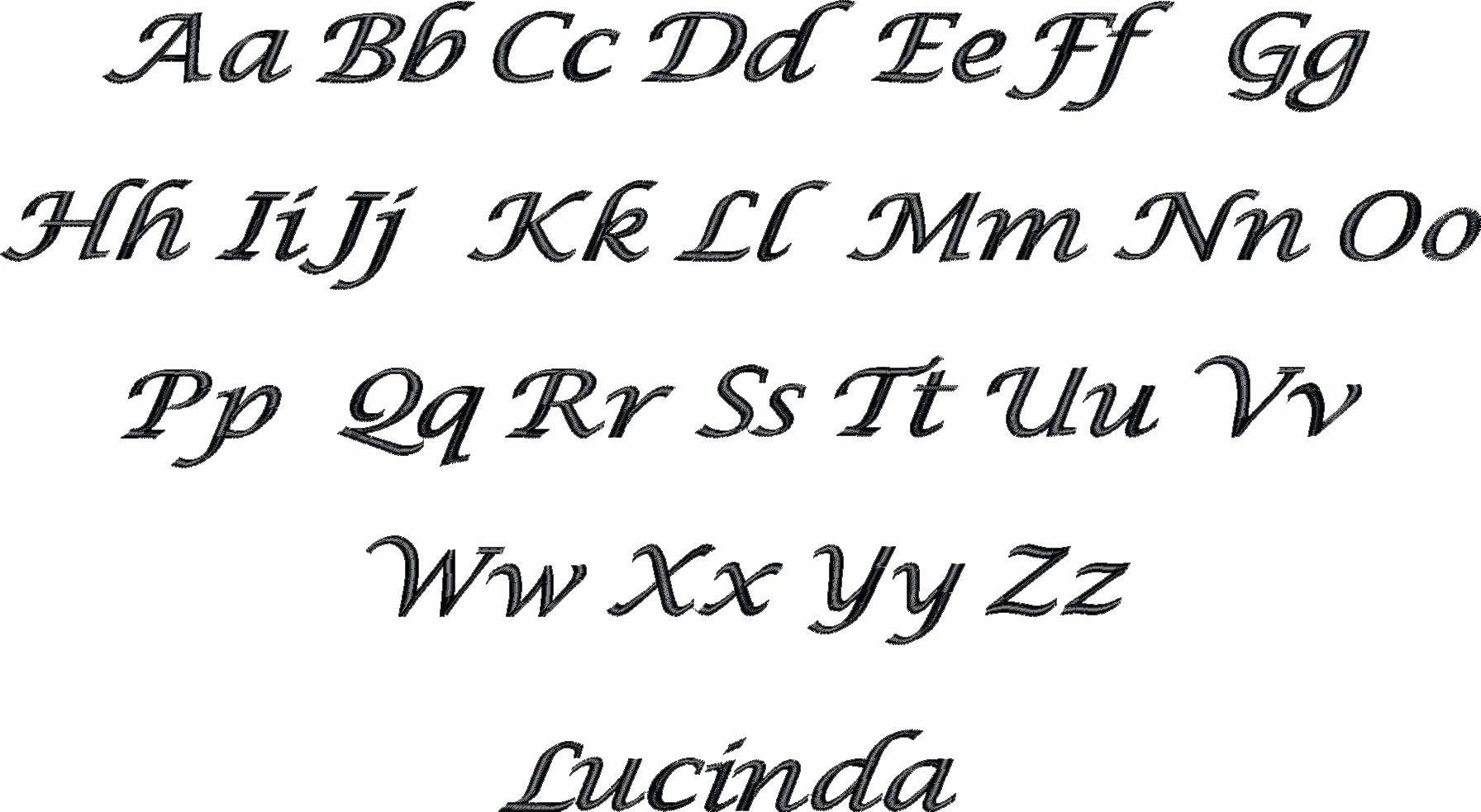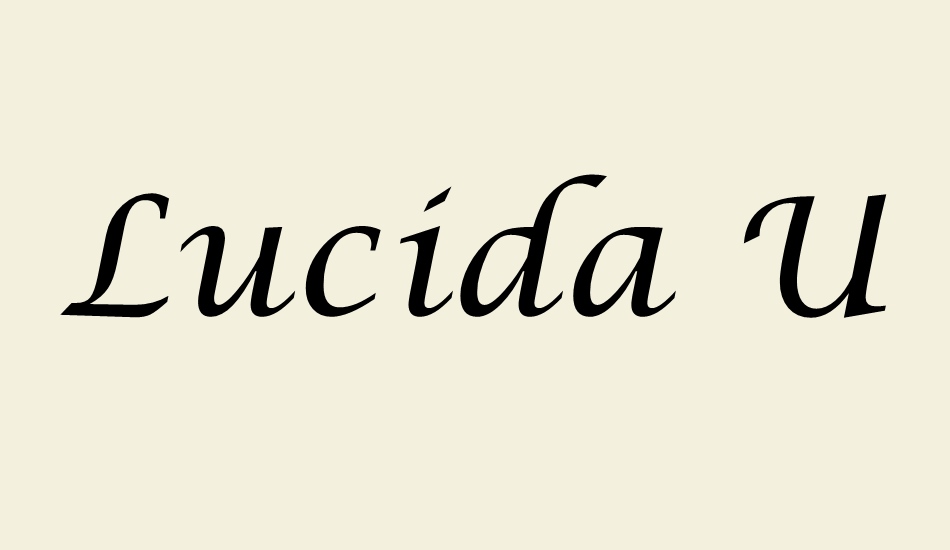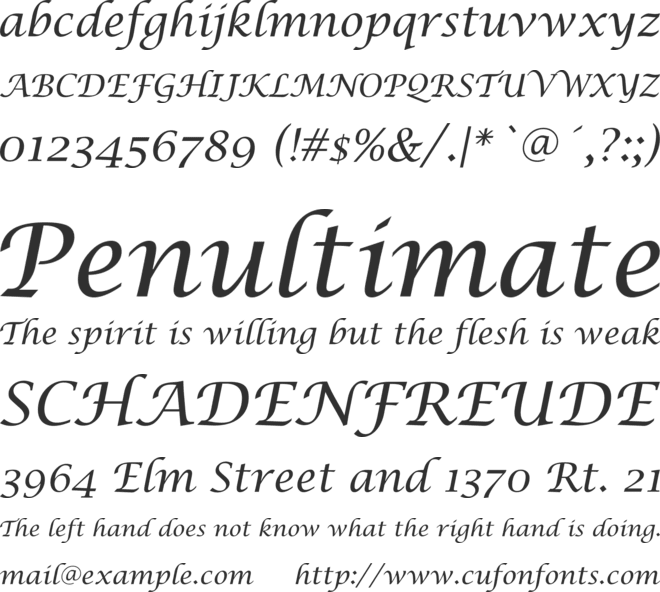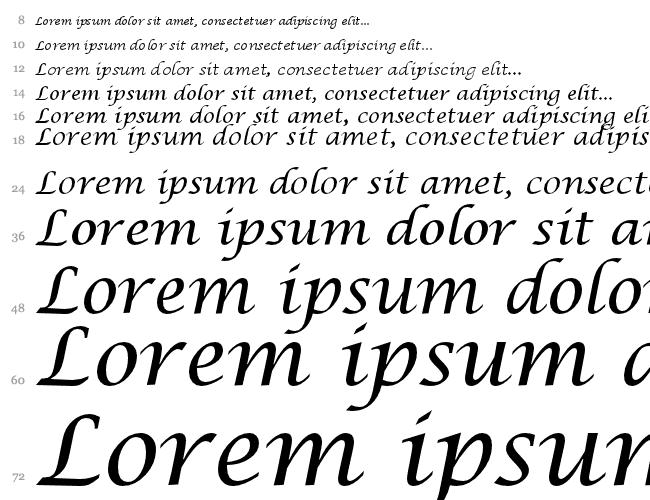
Fonts Lucida Calligraphy
Fonts Lucida Calligraphy - Web lucida calligraphy is a chancery cursive script typeface family designed by kris holmes and charles bigelow. Web it is a very legible and readable typeface, designed for use on screen and in print environments. Lucida calligraphy is a chancery cursive script typeface family designed by kris holmes and charles.
Web it is a very legible and readable typeface, designed for use on screen and in print environments. Lucida calligraphy is a chancery cursive script typeface family designed by kris holmes and charles. Web lucida calligraphy is a chancery cursive script typeface family designed by kris holmes and charles bigelow.
Web lucida calligraphy is a chancery cursive script typeface family designed by kris holmes and charles bigelow. Lucida calligraphy is a chancery cursive script typeface family designed by kris holmes and charles. Web it is a very legible and readable typeface, designed for use on screen and in print environments.
Web it is a very legible and readable typeface, designed for use on screen and in print environments. Web lucida calligraphy is a chancery cursive script typeface family designed by kris holmes and charles bigelow. Lucida calligraphy is a chancery cursive script typeface family designed by kris holmes and charles.
Web lucida calligraphy is a chancery cursive script typeface family designed by kris holmes and charles bigelow. Lucida calligraphy is a chancery cursive script typeface family designed by kris holmes and charles. Web it is a very legible and readable typeface, designed for use on screen and in print environments.
Lucida calligraphy is a chancery cursive script typeface family designed by kris holmes and charles. Web it is a very legible and readable typeface, designed for use on screen and in print environments. Web lucida calligraphy is a chancery cursive script typeface family designed by kris holmes and charles bigelow.
Web lucida calligraphy is a chancery cursive script typeface family designed by kris holmes and charles bigelow. Lucida calligraphy is a chancery cursive script typeface family designed by kris holmes and charles. Web it is a very legible and readable typeface, designed for use on screen and in print environments.
Web it is a very legible and readable typeface, designed for use on screen and in print environments. Lucida calligraphy is a chancery cursive script typeface family designed by kris holmes and charles. Web lucida calligraphy is a chancery cursive script typeface family designed by kris holmes and charles bigelow.
Web It Is A Very Legible And Readable Typeface, Designed For Use On Screen And In Print Environments.
Lucida calligraphy is a chancery cursive script typeface family designed by kris holmes and charles. Web lucida calligraphy is a chancery cursive script typeface family designed by kris holmes and charles bigelow.